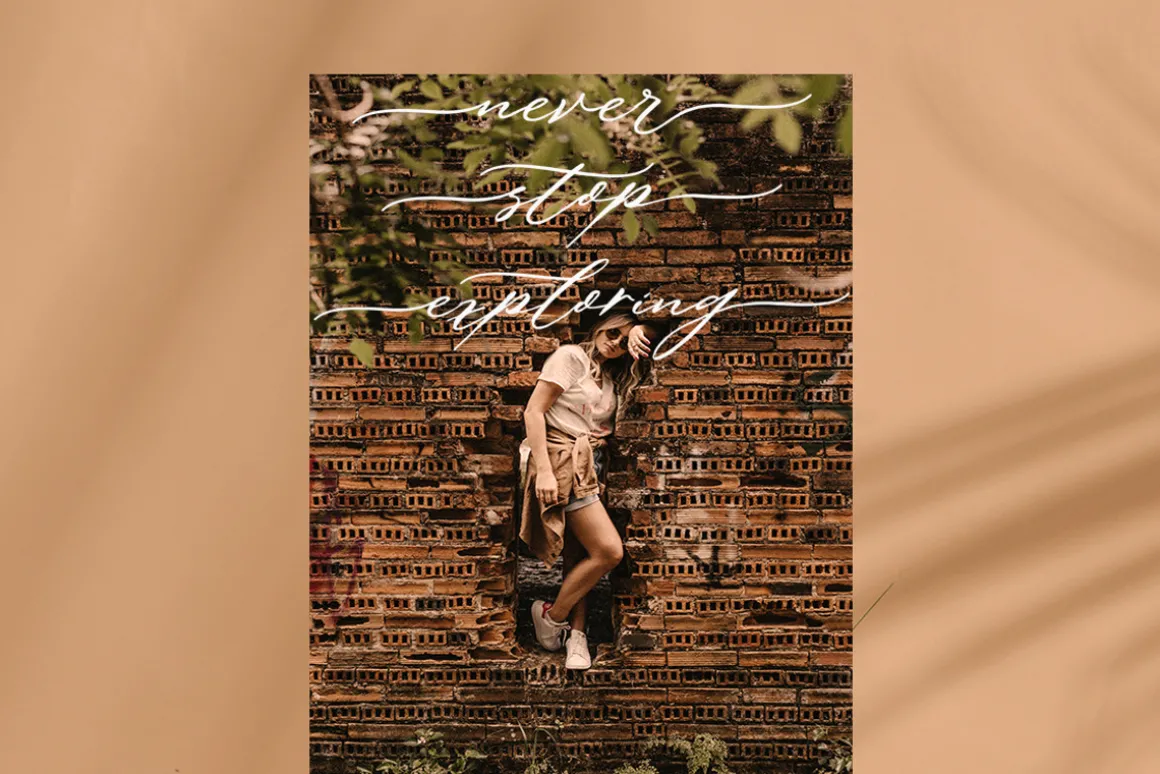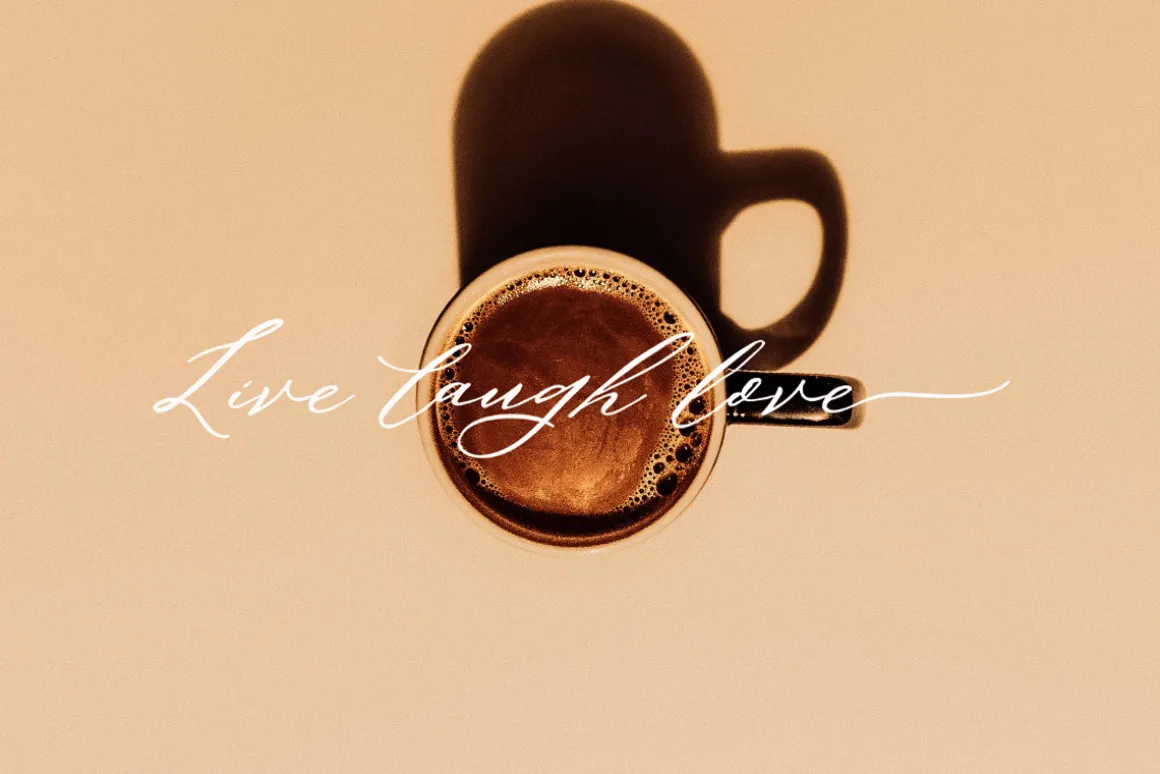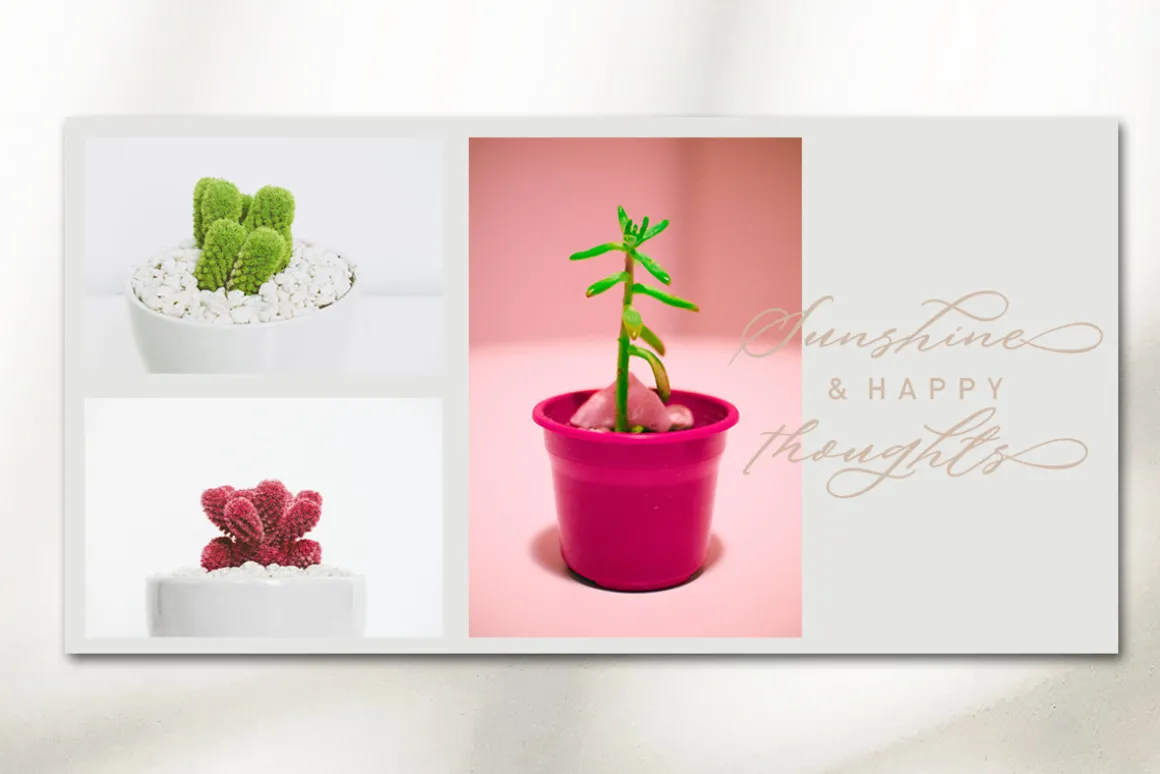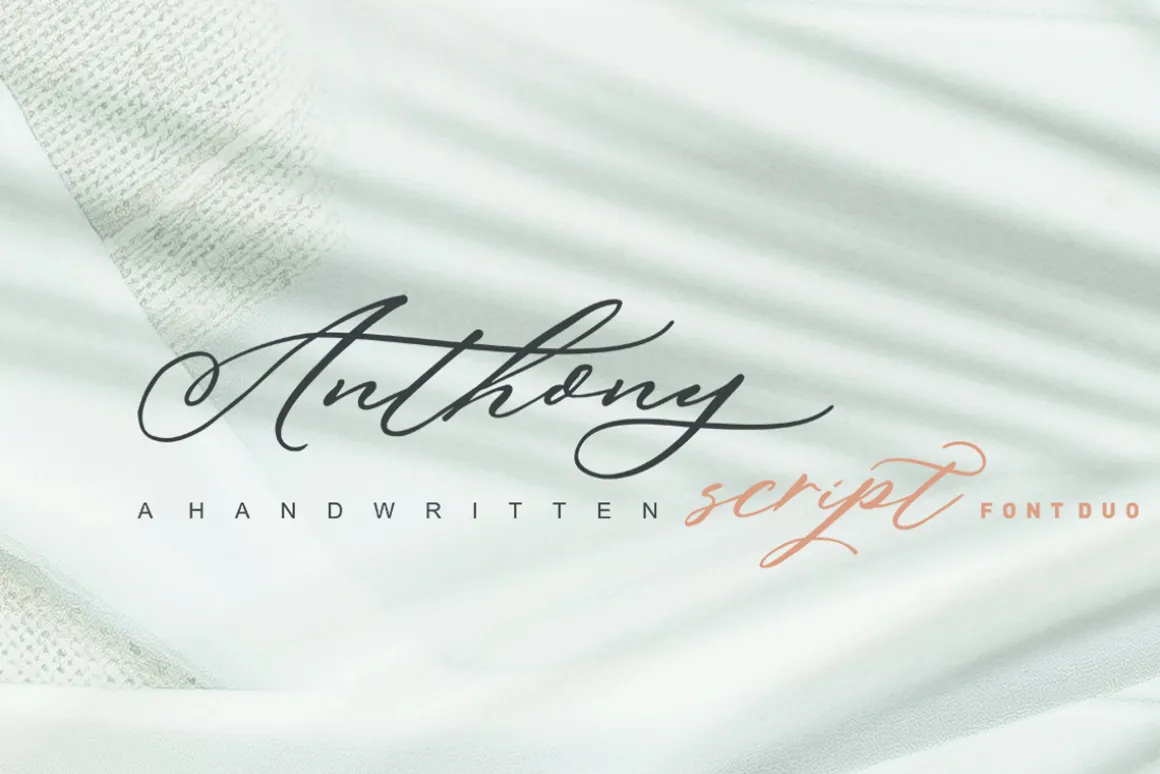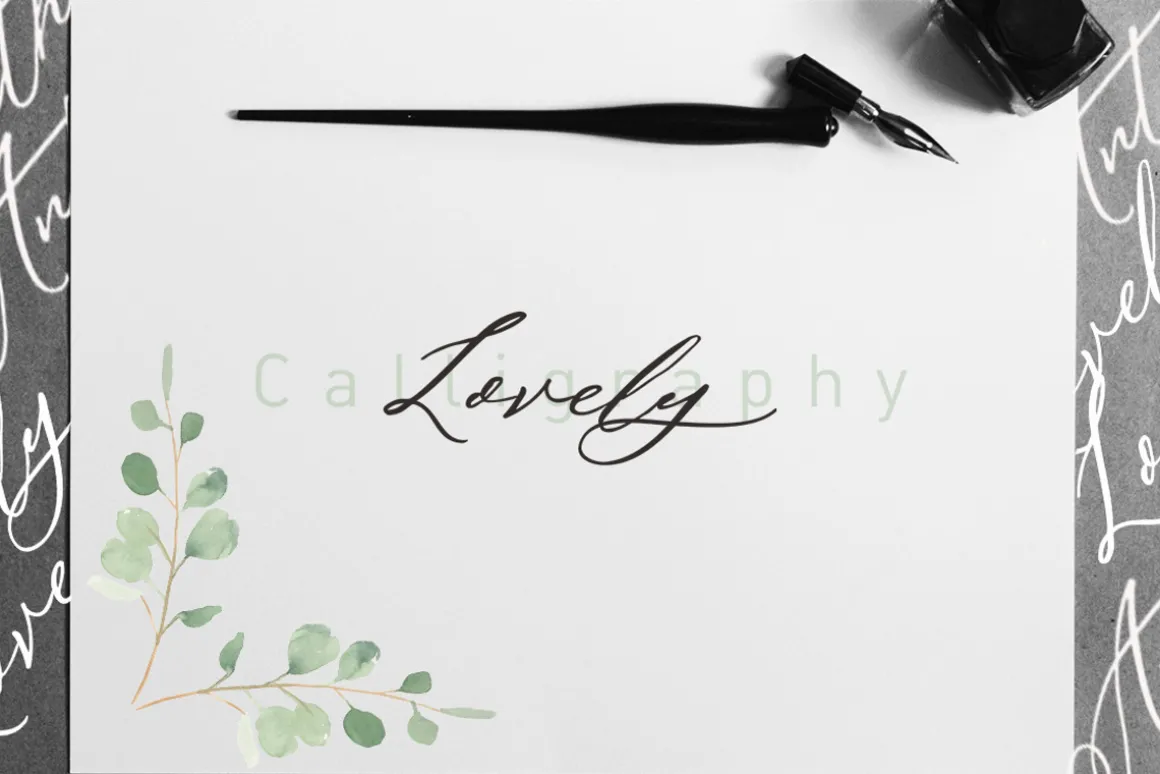
Anthony Script Font duo is a brush font with a lot of alternates & ligatures., luxurious and elegant with a dancing baseline. Also available Font duo to help you mix and match it to fit your creative work in harmony. perfect for Branding, Logos, Greeting Cards, Wedding Stationery, Quotes etc.